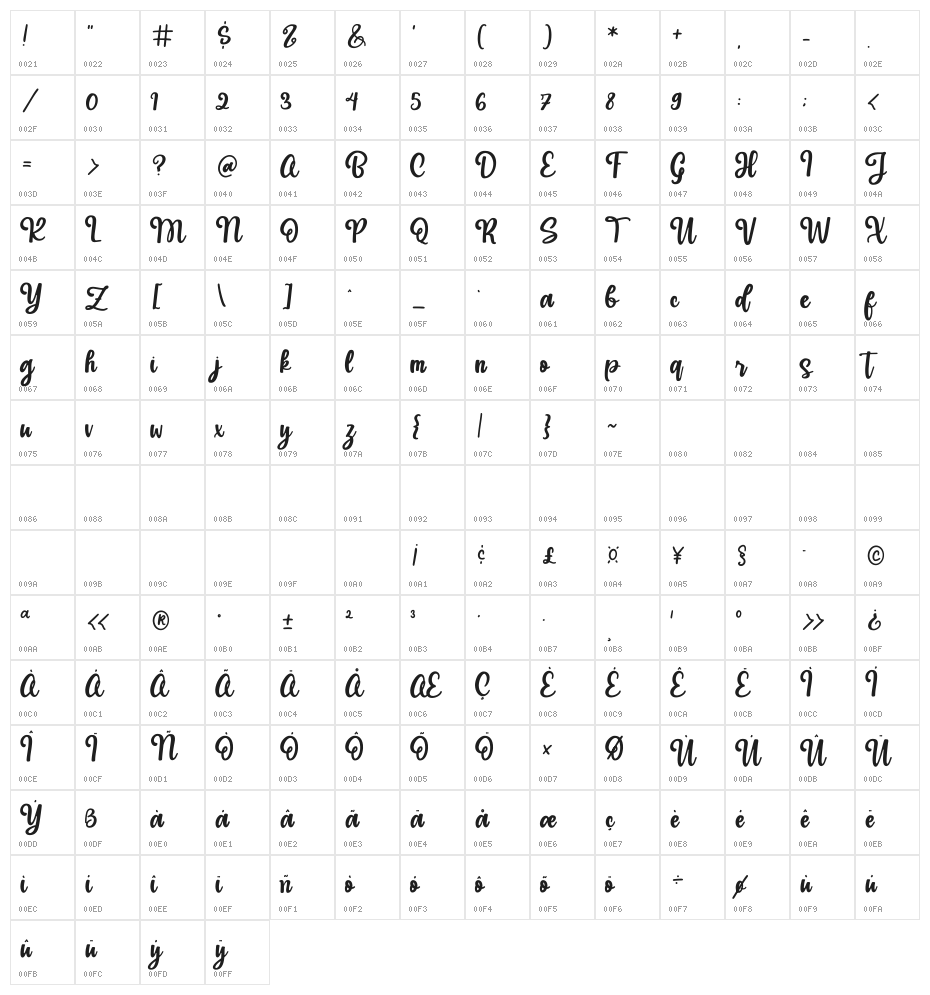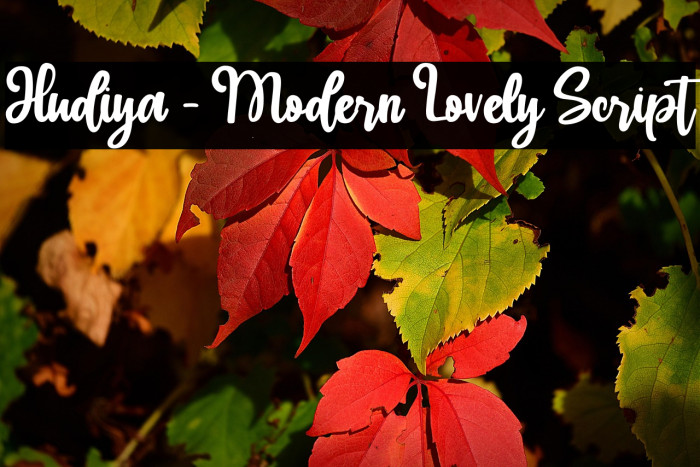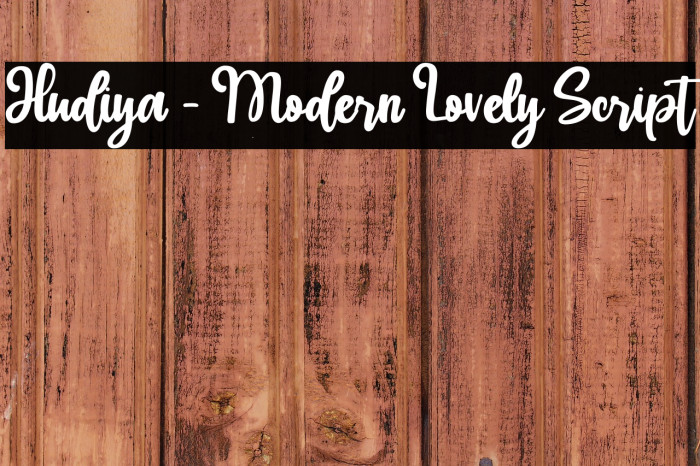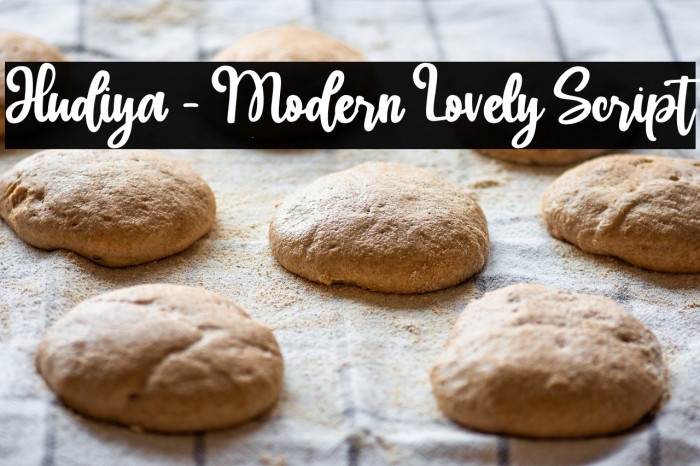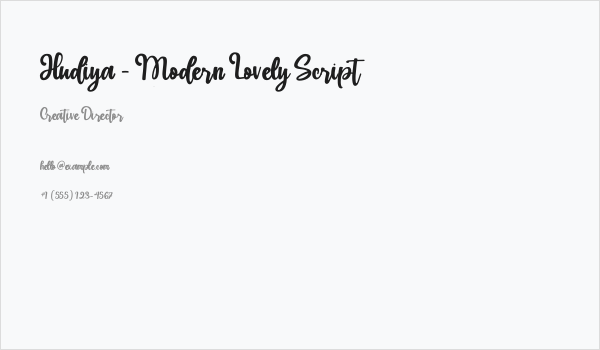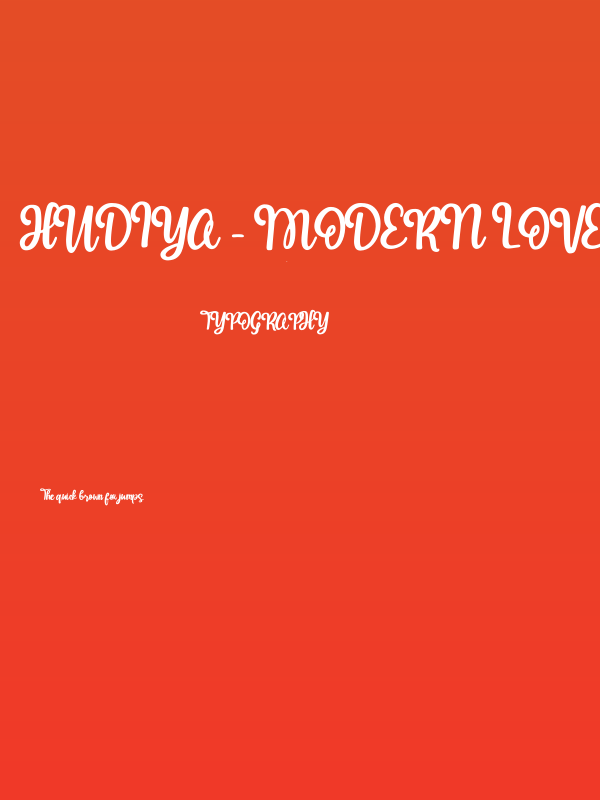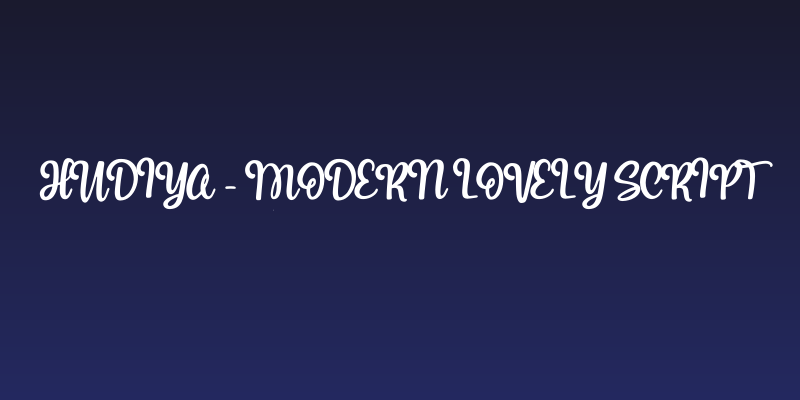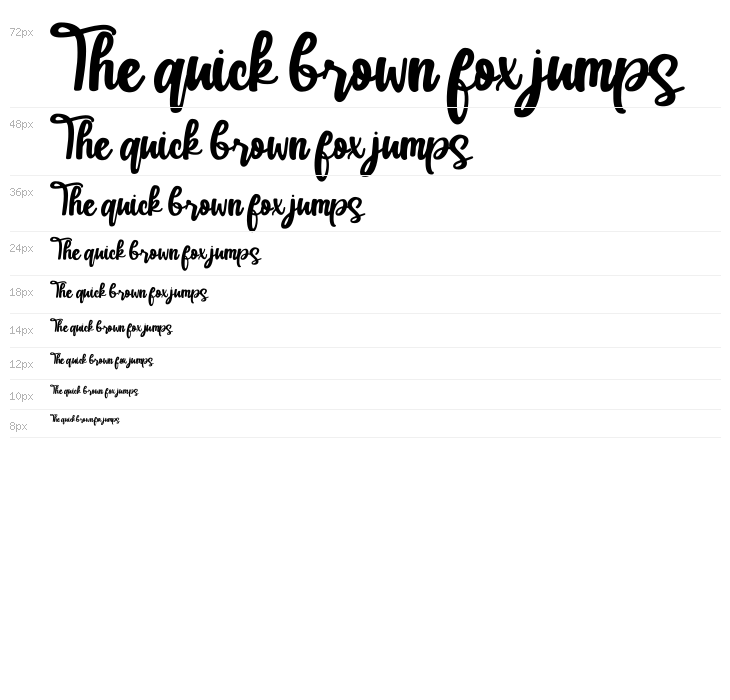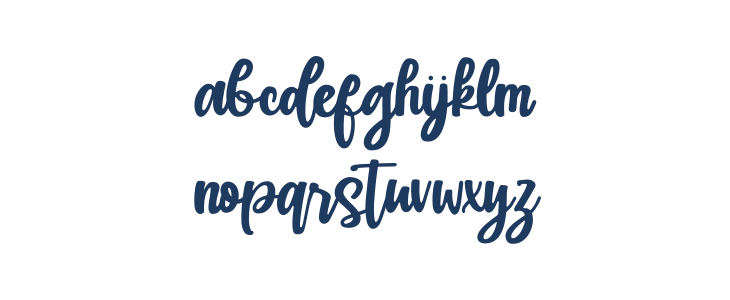
Hudiya - Modern Lovely Script Font
Hudiya - Modern Lovely Script Description
This font exudes a modern and lovely script style, characterized by its fluid and elegant cursive strokes. The uppercase letters are bold and sweeping, with a playful yet sophisticated flair. The lowercase letters maintain a consistent flow, enhancing readability while retaining a decorative touch. Numbers and special characters are crafted with the same attention to detail, ensuring a cohesive look across all text. The overall design is both charming and versatile, making it suitable for a variety of creative projects.
Use CaseLogos, Headlines, Decorative text
Proposed ProjectsIdeal for wedding invitations, greeting cards, branding, and social media graphics.